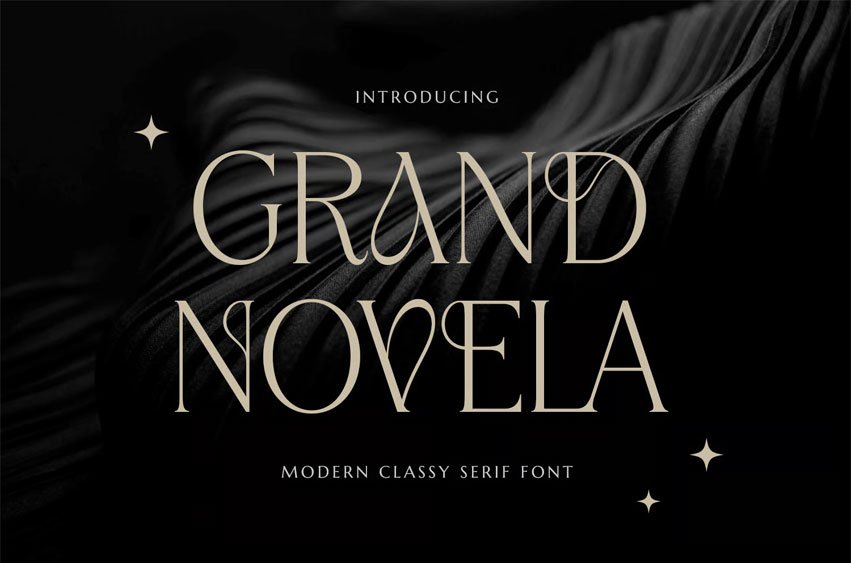
Grand Novela Font is a modern classy serif font that exudes sophistication and elegance. With its simple yet elegant shapes, Grand Novela adds a unique and classy touch to a range of creative projects.
Grand Novela is perfectly suited for branding projects, logos, social media posts, advertisements, product packaging, labels, photography, watermarks, stationery, and any projects seeking for a touch of elegant, luxury, classic, aesthetic and any sophisticated vibe.
FEATURES:
- Stylistic Alternates
- Uppercase and Lowercase letters
- Numbering and Punctuations
- Multilingual Support for 68 languages including Afrikaans, Albanian, Basque, Catalan, Danish, Dutch, English, Estonian, Faroese, Filipino, Finnish, French, Galician, German, Icelandic, Indonesian, Irish, Italian, Malay, Norwegian Bokmål, Portuguese, Spanish, Swahili, Swedish, Zulu